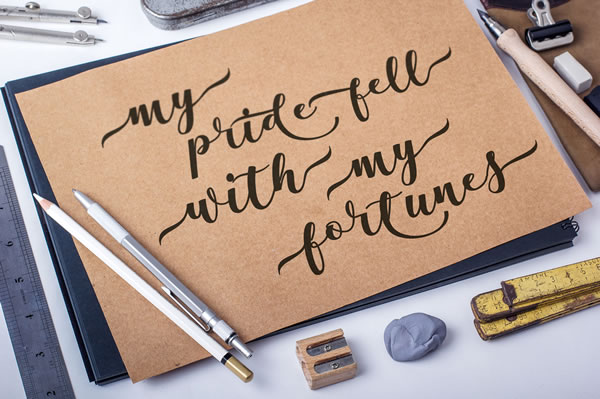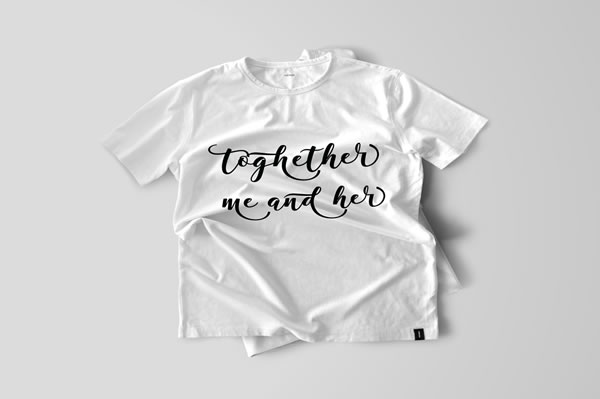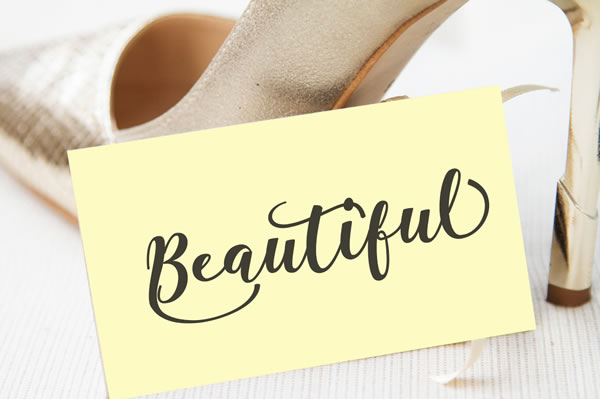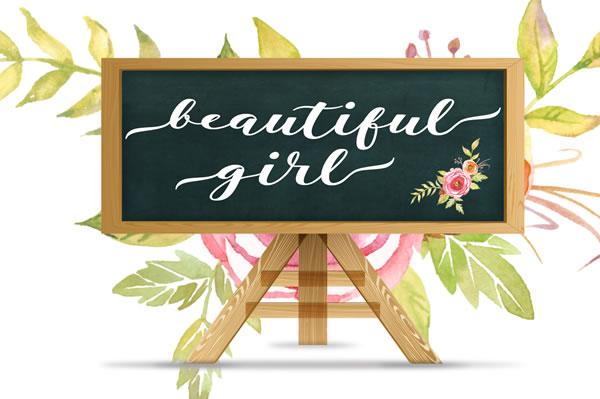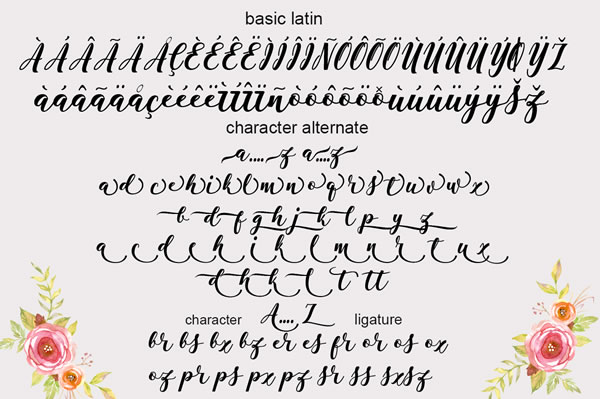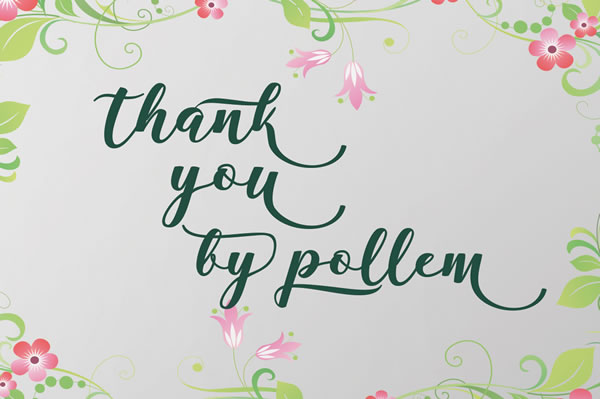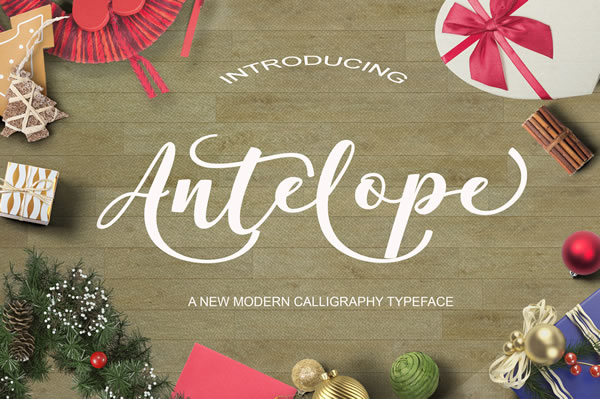
Introducing Antelope Font: A Modern Calligraphy Typeface
Are you tired of using the same old fonts for your designs? Look no further! The Antelope font is a modern calligraphy typeface that is sure to elevate your creative projects. Designed entirely by hand, this font boasts a unique and natural look that will make your designs stand out from the crowd.
What Sets Antelope Font Apart
The Antelope font is not just any ordinary font. It has been carefully crafted to provide a range of features that make it perfect for designers and crafters. Some of its key features include:
- Standard Ligatures: The Antelope font features standard ligatures, which allow for a more natural and fluid writing style. Ligatures are special characters that combine two or more letters to create a single, cohesive unit.
- Stylistic Alternates: This font also includes stylistic alternates, which provide alternative forms of letters and characters. This allows you to add more variety and personality to your designs.
- Contextual Alternates: The Antelope font features contextual alternates, which adjust the appearance of letters based on their surroundings. This creates a more organic and natural look.
- Stylistic Sets: With stylistic sets, you can access a range of different letterforms and characters, allowing you to experiment with different styles and moods.
- Swashes: Finally, the Antelope font includes swashes, which are decorative flourishes that can add a touch of elegance and sophistication to your designs.
The Benefits of Using Antelope Font
So why choose the Antelope font for your designs? Here are just a few benefits:
- Unique and Modern Look: The Antelope font has a fresh and modern aesthetic that will help your designs stand out.
- Highly Versatile: With its range of features, the Antelope font can be used for a wide range of projects, from branding and advertising to packaging and digital design.
- Easily Readable: Despite its decorative nature, the Antelope font is highly readable, making it perfect for body text and headlines.
- Perfect for Crafters and Designers: Whether you’re a professional designer or a crafter, the Antelope font is a great choice. Its unique look and range of features make it perfect for a wide range of creative projects.
How to Use Antelope Font in Your Designs
Using the Antelope font in your designs is easy. Here are a few tips to get you started:
- Pair it with a Sans Serif Font: For a modern and sophisticated look, try pairing the Antelope font with a sans serif font.
- Experiment with Different Features: Don’t be afraid to experiment with the Antelope font’s features, such as ligatures and swashes.
- Use it for Headlines and Titles: The Antelope font is perfect for headlines and titles, where its decorative nature can really shine.
- Add a Personal Touch: Finally, don’t be afraid to add a personal touch to your designs with the Antelope font. Its unique look and feel make it perfect for projects where you want to add a bit of personality.
The Antelope font is a modern calligraphy typeface that is sure to elevate your designs. With its unique look, range of features, and high readability, it’s perfect for designers and crafters alike. Whether you’re looking to add a touch of elegance to your projects or simply want to try something new, the Antelope font is a great choice. So why not give it a try today and see the difference it can make?